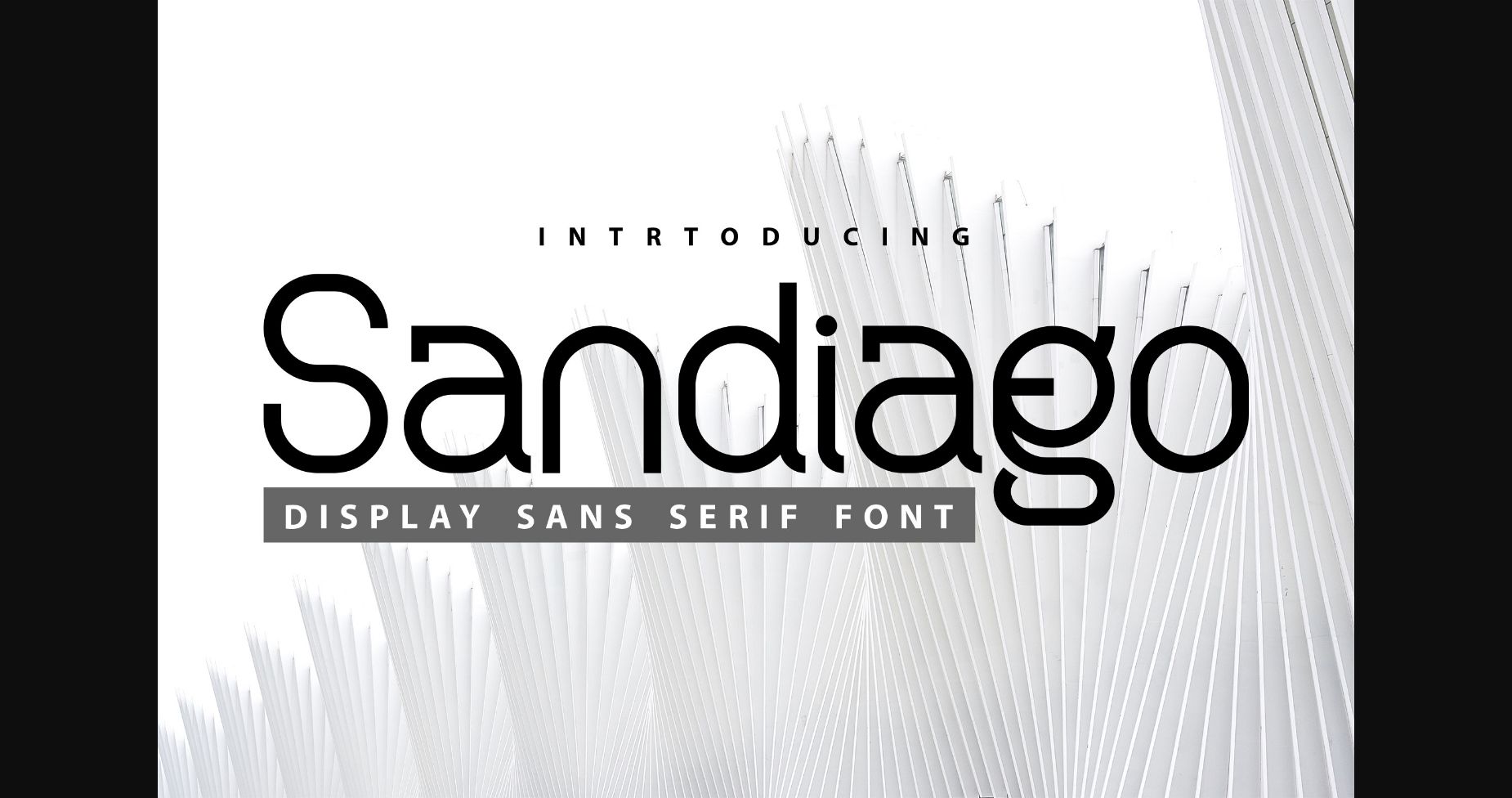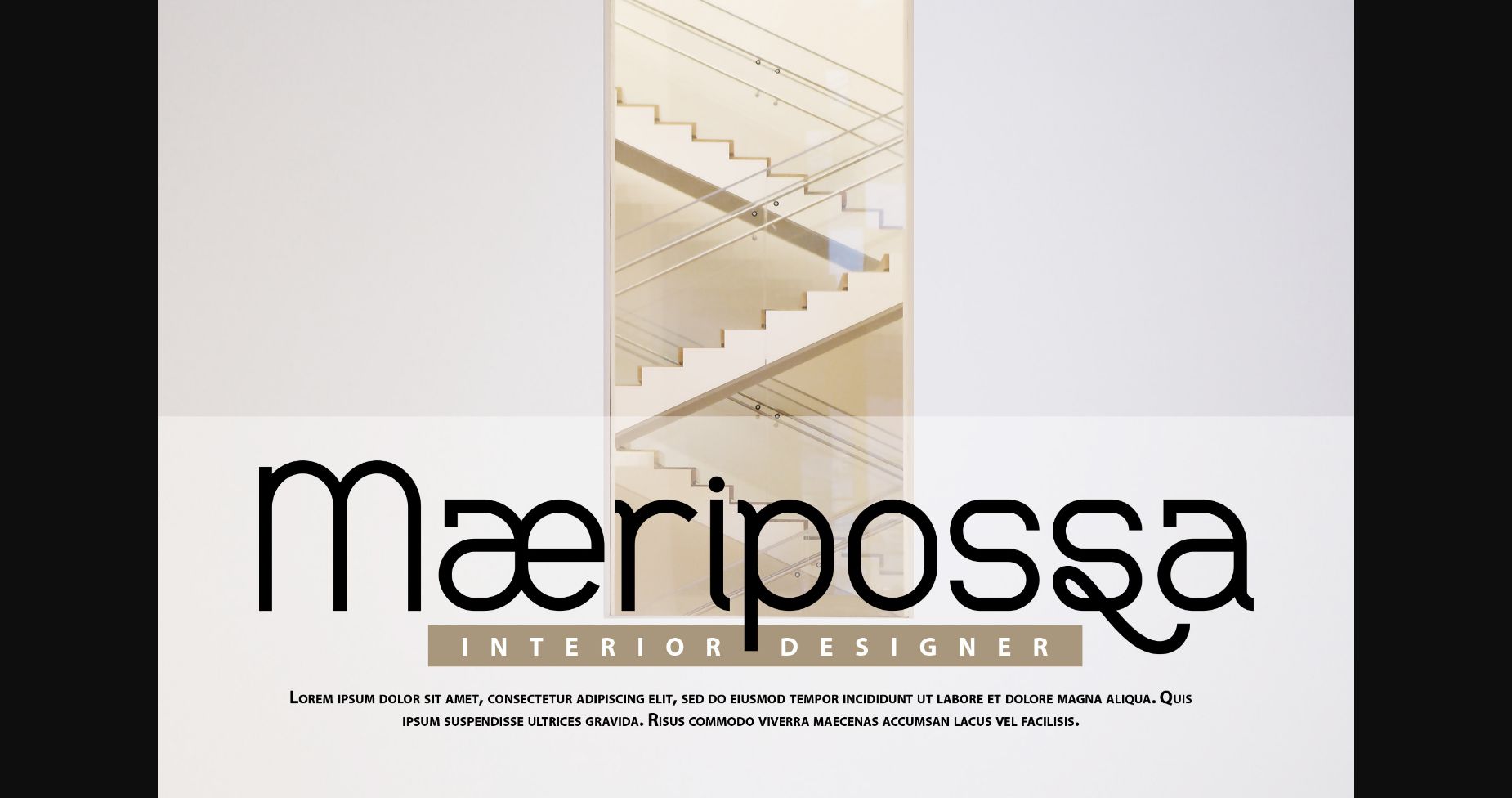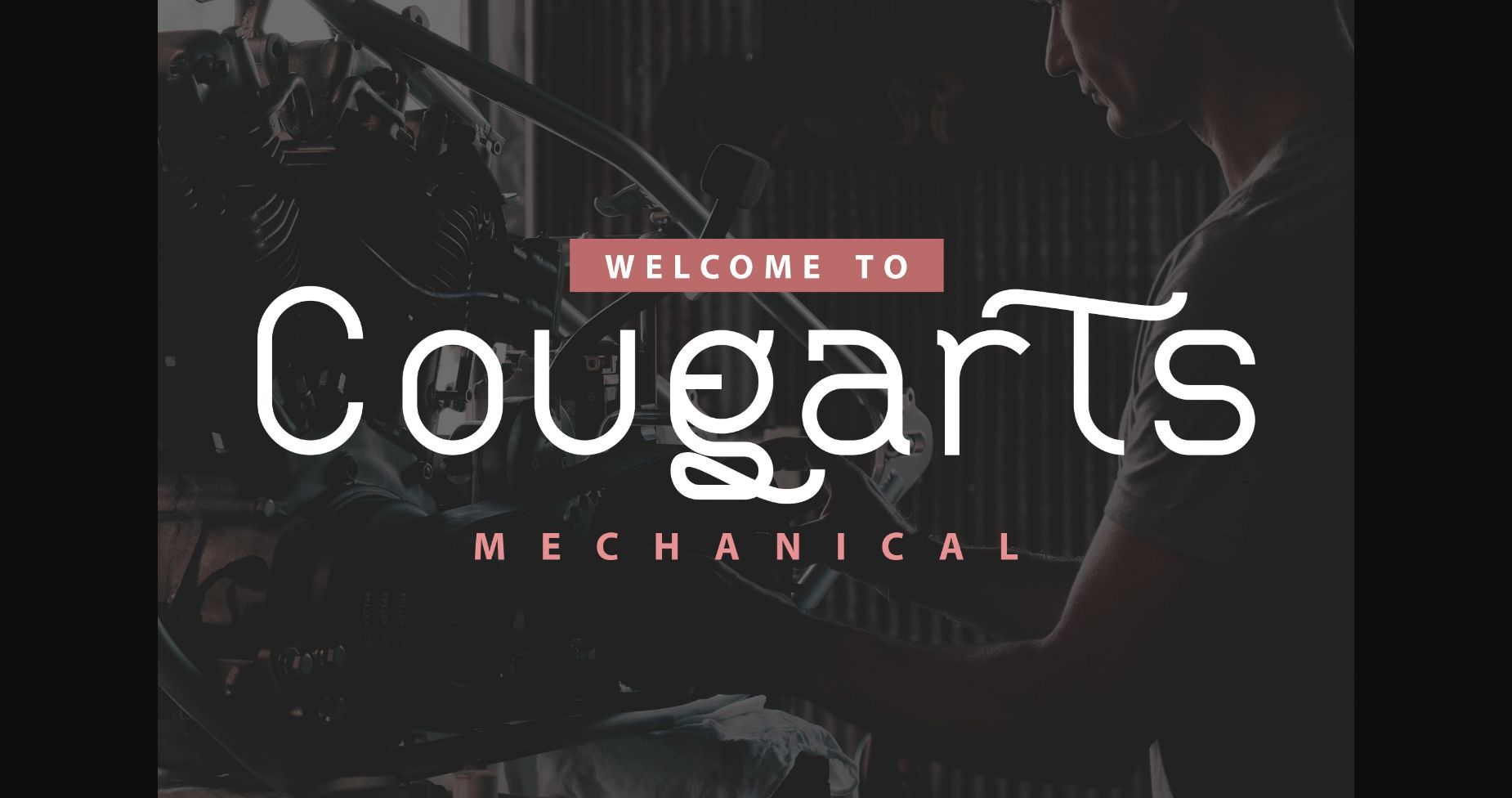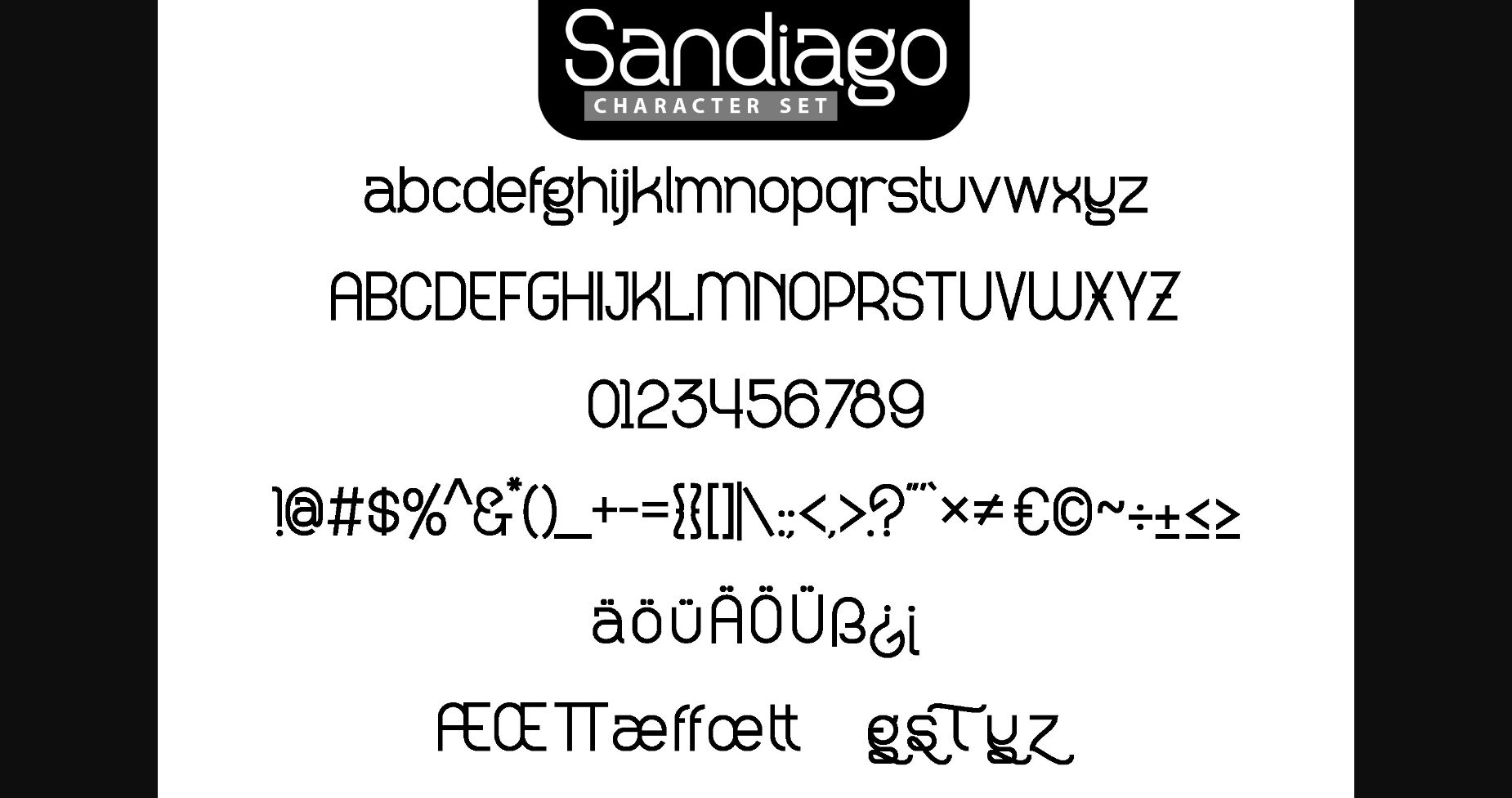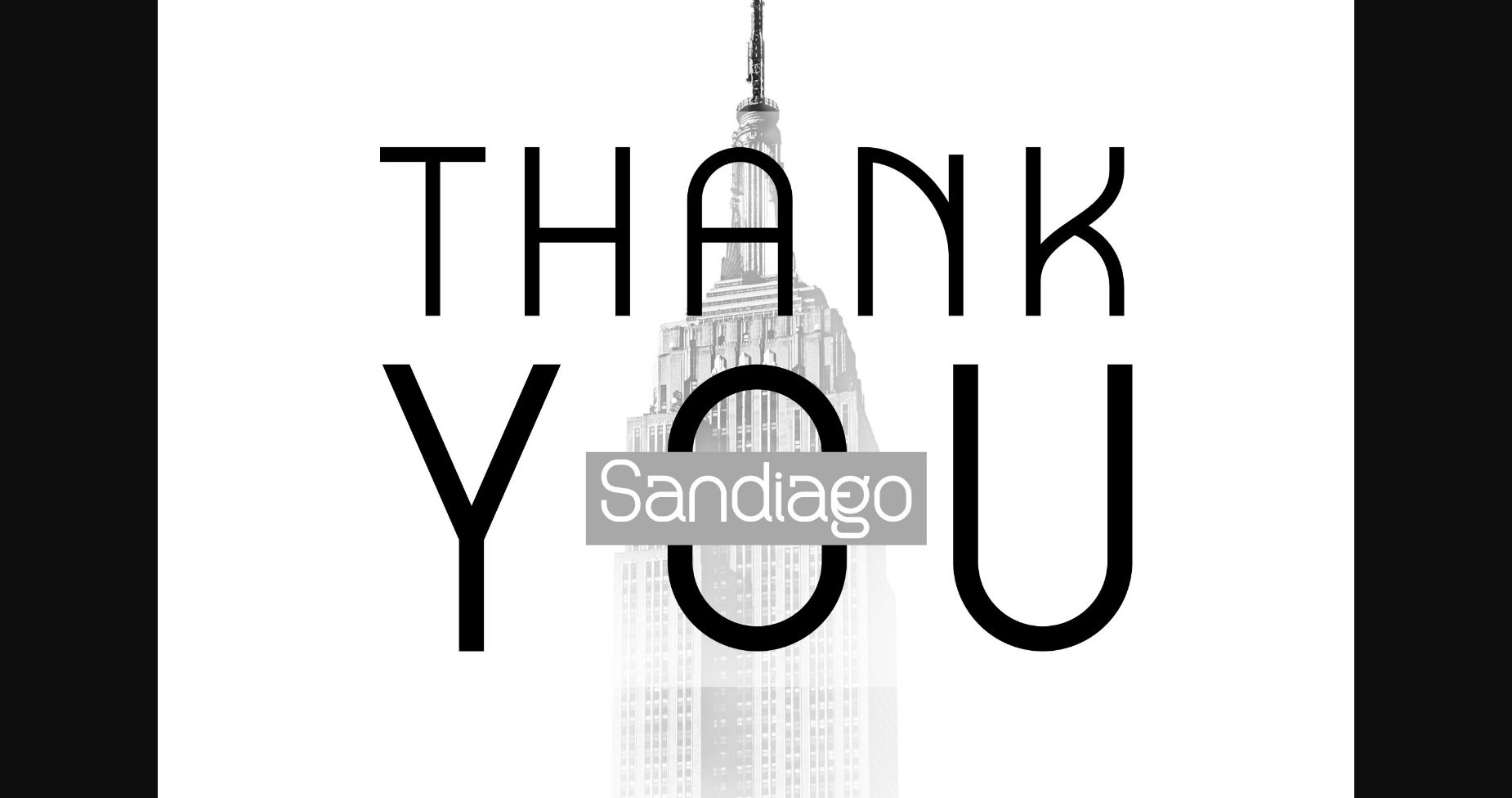
About Sandiago Font
Sandiago is a stylish and modern sans-serif font that embodies simplicity and sophistication. With its clean lines and balanced proportions, Sandiago is the perfect choice for creating a contemporary look and feel. Whether you’re designing a logo, website, or editorial layout, Axiom’s versatility and legibility make it a standout choice.